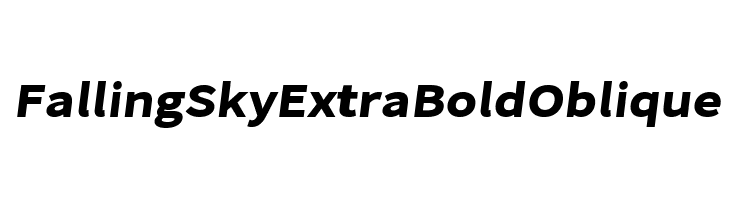
A bold, oblique font with a modern and dynamic style.
A clean, modern sans-serif font with uniform stroke width and excellent readability.
A modern, oblique sans-serif font with clean lines and balanced spacing.
A clean, modern sans-serif typeface with balanced proportions and clear readability.
A modern, medium-weight oblique sans-serif font with a dynamic style.
A clean, modern semi-bold typeface with balanced proportions and smooth curves.
A modern, semi-bold oblique sans-serif font with a dynamic and clean appearance.